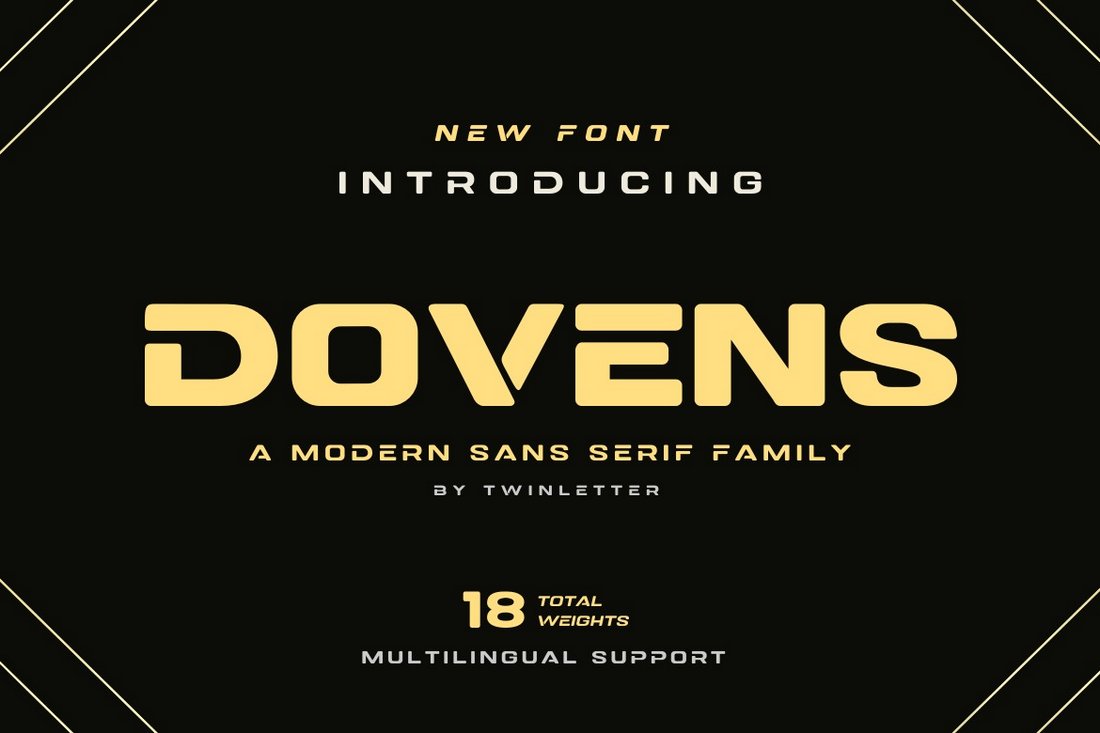
50+ Best Free Fonts for Designers 2022
Today we’re bringing you a collection of beautiful free fonts made just for designers. These fonts are perfect for creating professional designs without breaking the bank.
Finding a great font is not always expensive. Especially if you’re working on a personal project or a creative experiment, you can always go with a free font.
Fonts come in all kinds of styles and designs. We’re covering all those styles of fonts in this collection. Including serif fonts, sans-serif fonts, script fonts, and more. Even though the fonts are free, they feature high-quality designs you can use in professional projects.
Brolimo – Free Elegant Font Family
Brolimo is an elegant and stylish font that is perfect for designing trendy designs for social media, fashion brands, website headers, and everything in between. You can download and use the free version of the font with your personal projects.
Senilità – Free Retro Display Font
Senilita is a clean display font featuring a retro lettering design. It has a set of beautiful letters that are simply ideal for making big bold titles. The font is completely free to use with your personal and commercial projects.
Quantum – Free Futuristic Display Font
If you’re looking for a unique font with a cool futuristic design, Quantum is a great choice for you. It comes with a thin and creative set of characters that will make your poster and flyer designs stand out from the crowd.
Aestetico – Free Minimal Font Family
The minimal and clean design of this font makes it suitable for all kinds of designs from letterheads to social media posts. The font family includes 54 fonts, featuring 9 font weights and 3 sister font families. It’s free for personal use.
Raviola – Free Playful Font
If you want to add a cute and playful look to your titles and logo designs, be sure to grab this free font. It features a fun letter design that will fit in nicely with greeting cards and flyers. It’s also free for personal use.
Rockley – Free Sans Serif Font
Featuring a classy all-caps look with wide set spacing, Rockley is a free sans-serif typeface that will look good on virtually any design you use it on. We recommend you give Rockley a try, or add it to your shortlist at the very least.
Ganttlets- Free Brush Font
An ideal choice for your next branding project, Ganttlets is a simple, and elegant brush script font that will surely help your work stand out. It comes with uppercase, and lowercase letters, numbers, symbols, punctuation, and more.
Olegos- Free Designer Font
If you’re searching for a minimal yet dramatic typeface for your next design project, consider the Olegos font, a unique and stylish option that’s available as a free download from Behance, and will add a funky edge to any creation.
Hugolers- Free Modern Serif Designer Font
Hugolers is a stylish and modern serif font with a gorgeous vintage vibe, thanks to the elaborate swashes and assortment of alternatives and ligatures for you to choose from. You can download this beautiful typeface for free from Graphic Design Freebies.
Belligiant Signature- Free Designer Font
For a stunning signature font that encompasses modern style elements with a timeless hand-drawn effect, look no further than the beautiful Belligiant typeface, which can be downloaded for free from Creative Tacos, and comes with a range of ligatures plus multilanguage support!
Natalia- Free Designer Font
Natalia is a gorgeous handwritten font with a classic vintage look that’s ideal for use in virtually any size or application, from text bodies to creative designs. This old-style font comes with a range of versatile characters and is available to download for free from Creative Tacos.
Honey Butterfly- Free Designer Font
Next up we have Honey Butterfly, a stunning retro inspired typeface that makes the perfect addition to a romantic project such as wedding invitations or a valentines card. Featuring a huge range of swashes, ligatures and stylistic alternates, this free font can be downloaded from Graphic Design Freebies.
Holla Grave – Free Display Font
With Halloween around the corner, chances are you’re working on a project that requires you to create creepy designs. Holla Grave is a free halloween-themed typeface that will give your designs a spooky appearance, and surprise everyone including yourself with the final outcome.
ADCA – Free Bold Modern Font
ADCA is a modern font featuring a bold and stylish design. The thick character design makes it a great typeface for designing posters and banners, especially for titles and headings. Plus the font is free to use with commercial projects.
Designed for an impactful and elegant visual impression mainly for headlines, logos, and posters, Chicago Shift is a great addition to the sans-serif family of typefaces. This font has semi-geometric and semi-humanist details with multilingual support. It comes in four weights- regular, light, hollow, and bold, making it an ideal choice for print and video headlines, social media, and more.